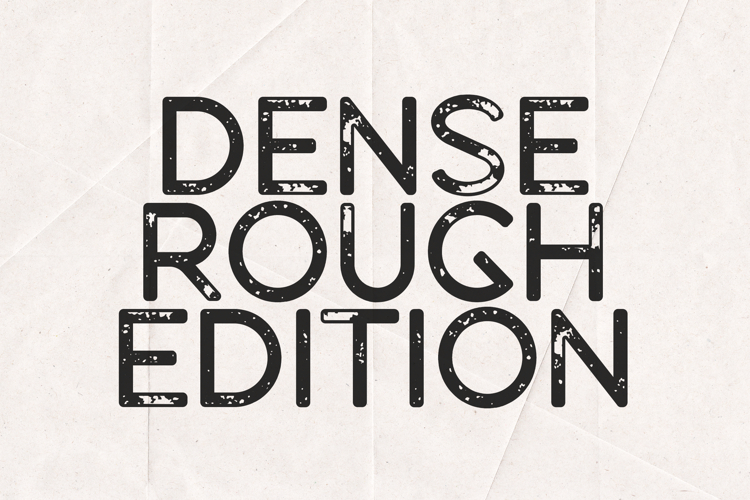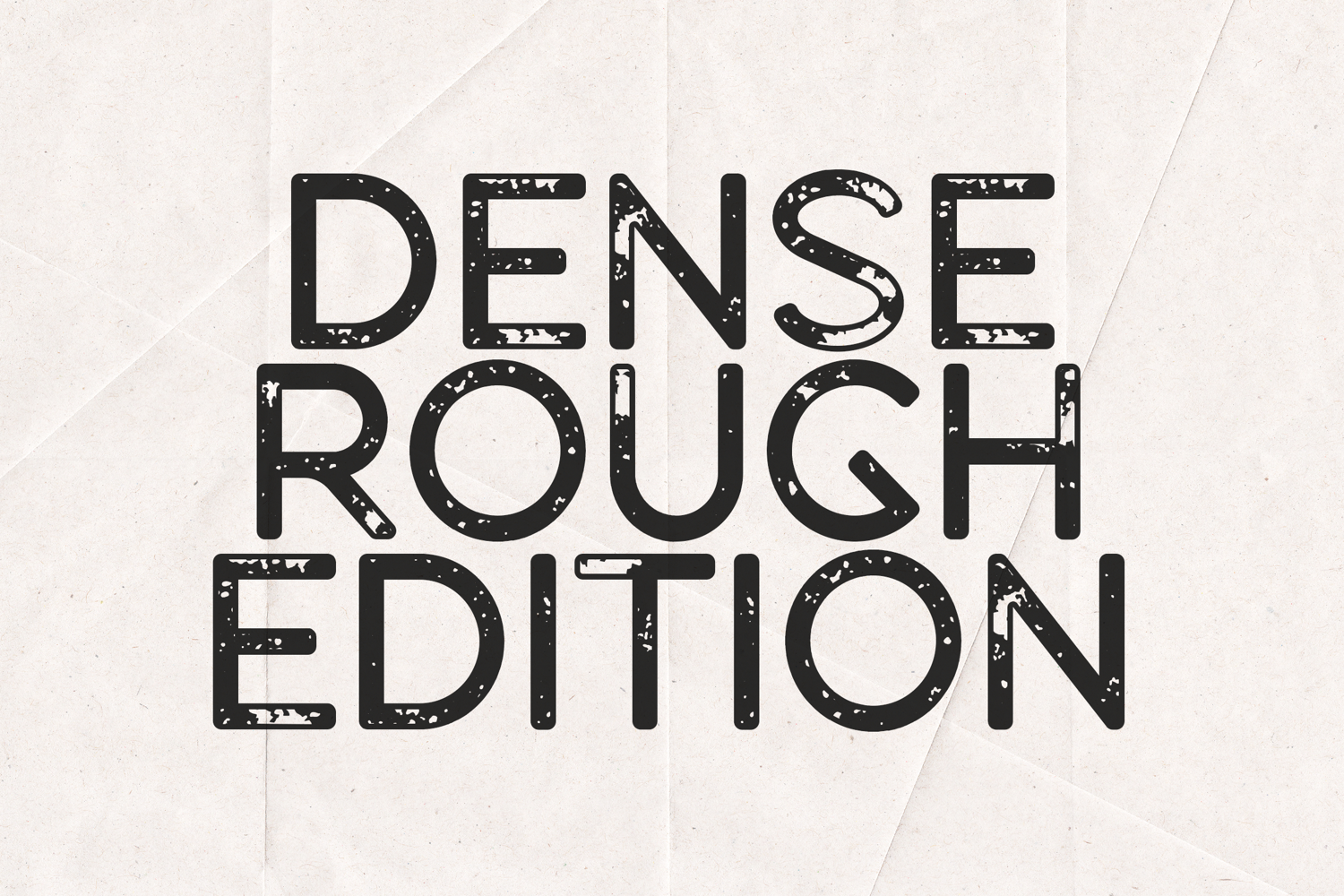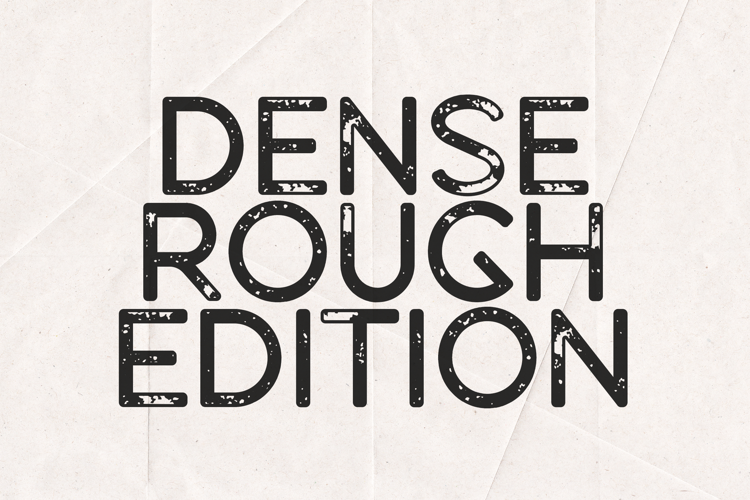
Dense Rough Edition Distressed Vintage
Denise Rough Edition is a bold distressed sans serif font designed with a dense vintage texture that gives every letter a raw and authentic printed look.
Inspired by worn ink, vintage posters, and handcrafted signage, this typeface brings strong character and personality to your designs. The textured letterforms create a natural grunge effect that works beautifully in bold headlines, branding, posters, and packaging.
Despite its rough appearance, the structure of the letters remains clear and balanced, making the font easy to read while still maintaining its expressive vintage style.
Denise Rough Edition is perfect for designers looking to create designs with a retro, handcrafted, and slightly rebellious personality.
Perfect For• Vintage branding
• Posters and flyers
• Apparel design
• Packaging
• Logos
• Editorial layouts
• Streetwear graphics
• Social media designs